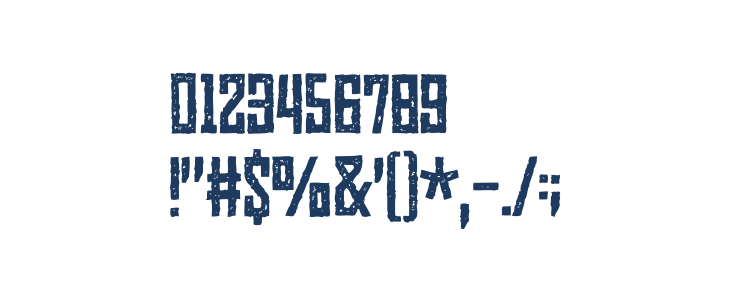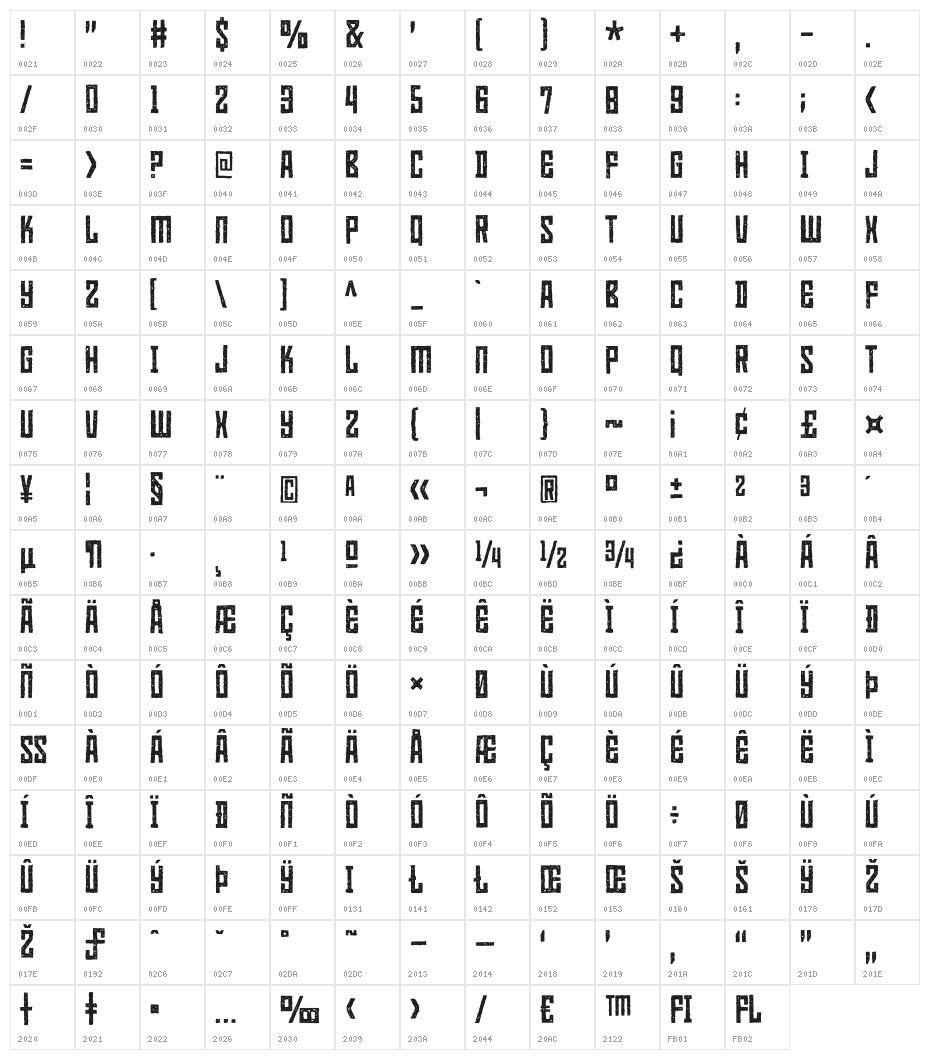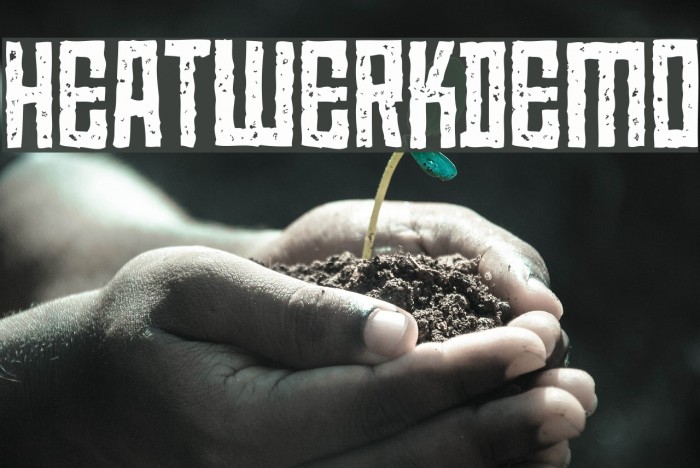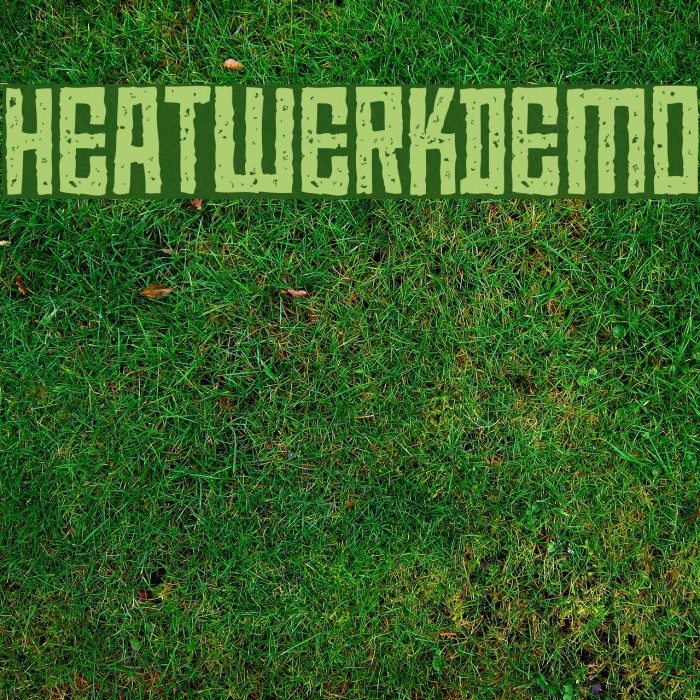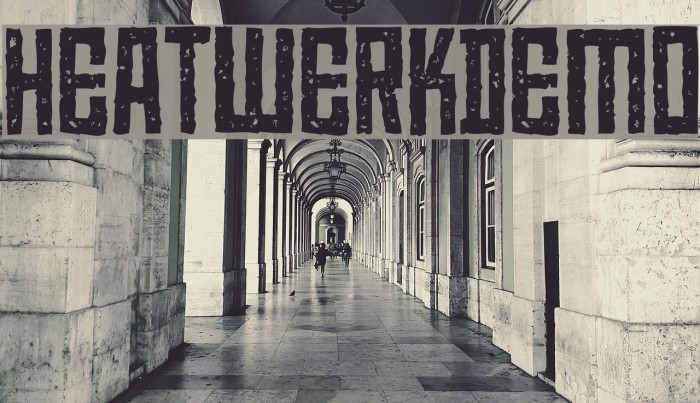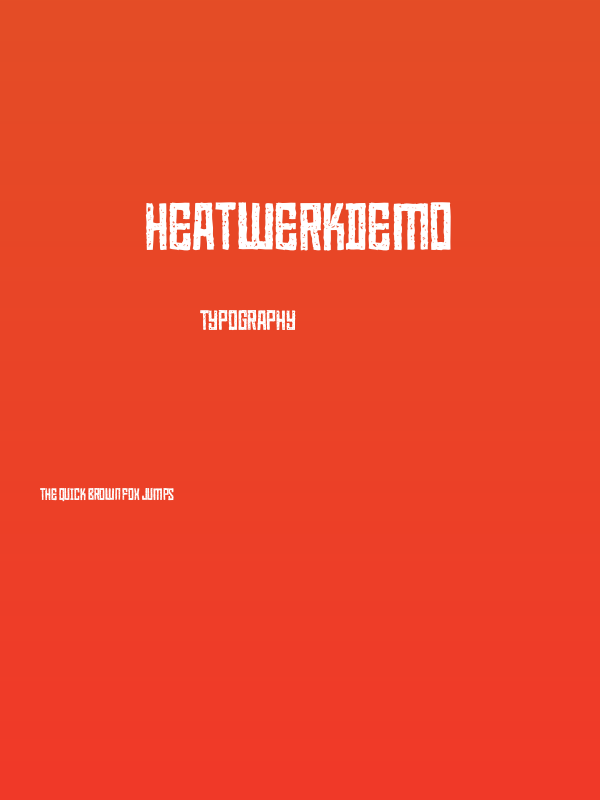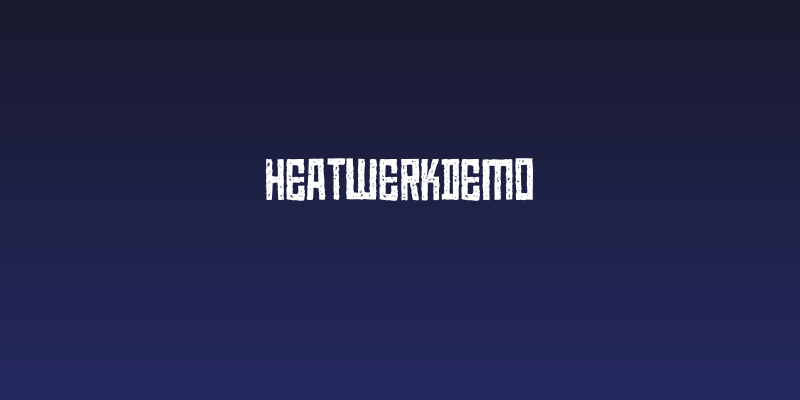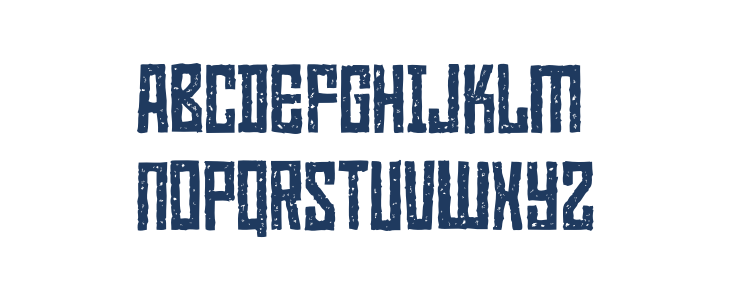
HeatwerkDEMO Font
HeatwerkDEMO Description
This font features a bold, distressed style with a rugged, textured appearance. The characters are blocky and uppercase, with a consistent height and width, giving them a uniform look. The texture within each letter resembles a worn or weathered surface, adding a gritty, industrial feel. The font's design is reminiscent of stencil or graffiti art, making it ideal for projects that require a strong, impactful visual presence. The numbers and special characters maintain the same distressed aesthetic, ensuring consistency across all elements. This font is well-suited for use in designs that aim to convey strength, edginess, or a vintage industrial theme.
| Overall Style | Industrial, Vintage |
| Proposed Projects | Perfect for posters, album covers, branding for edgy or industrial-themed products, and any design needing a strong visual impact. |